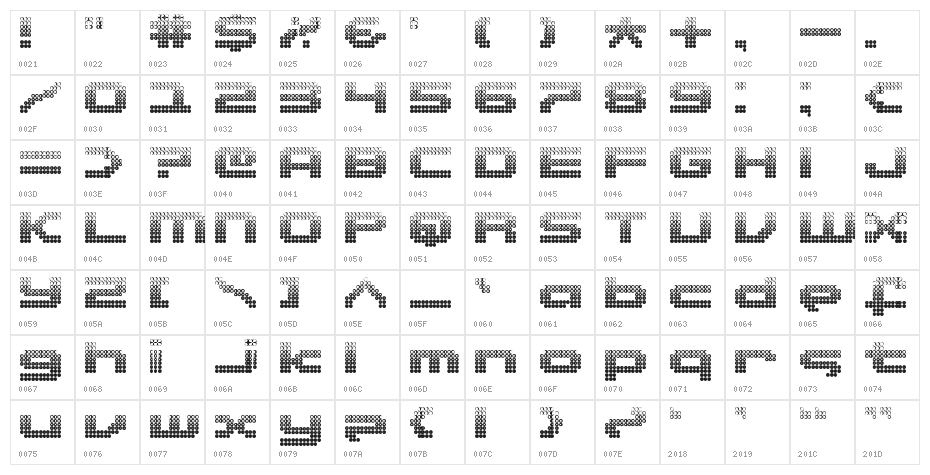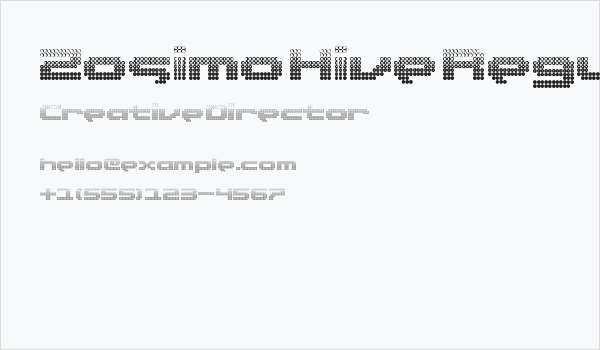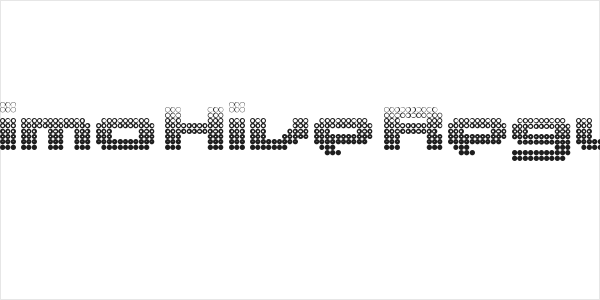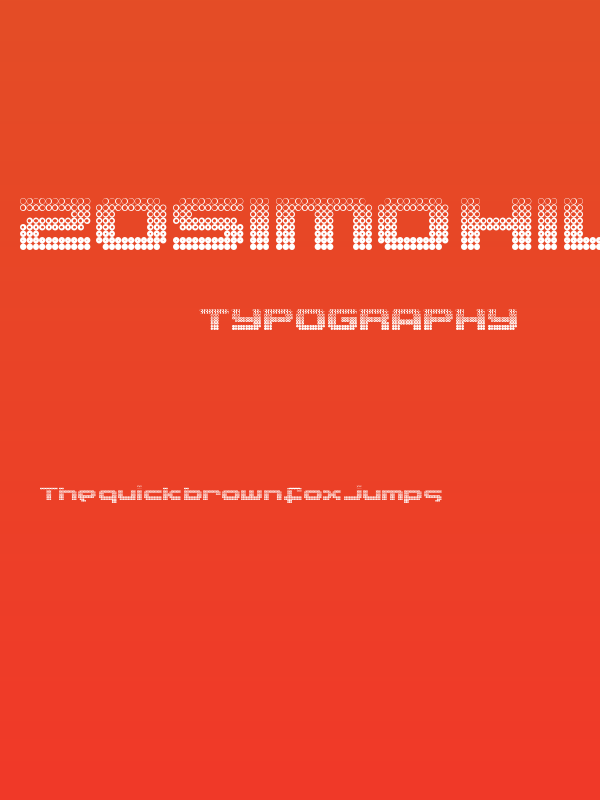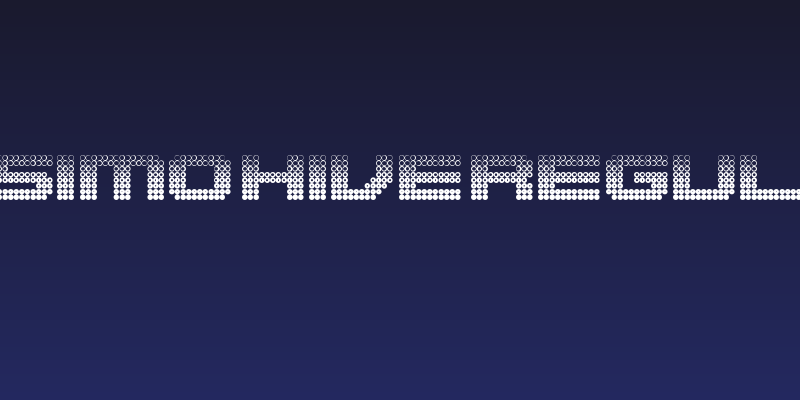
Zosimo Hive Regular Font
Zosimo Hive Regular Description
This font features a unique design composed of small, circular dots that form each character, giving it a digital and futuristic appearance. The characters are evenly spaced and maintain a consistent height, creating a uniform look across both uppercase and lowercase letters. The geometric nature of the font lends itself to a modern aesthetic, while the dot pattern adds a playful and creative touch. The numbers and special characters follow the same design principle, ensuring a cohesive style throughout. This font is particularly eye-catching and would stand out in any design project.
| Use Case | Headlines, Logos, Digital displays |
| Proposed Projects | Ideal for digital displays, tech-themed designs, posters, and creative branding projects. |